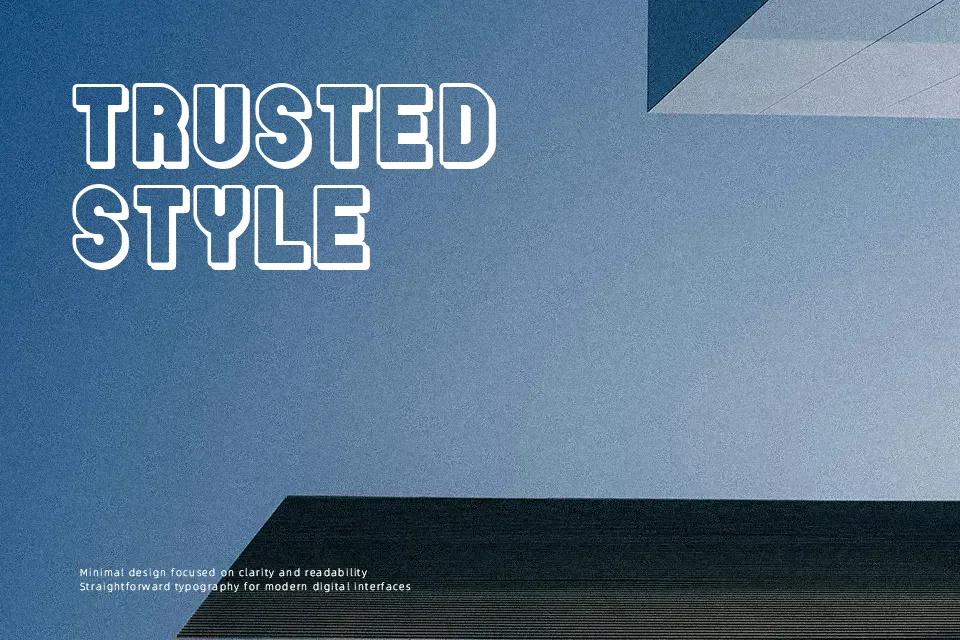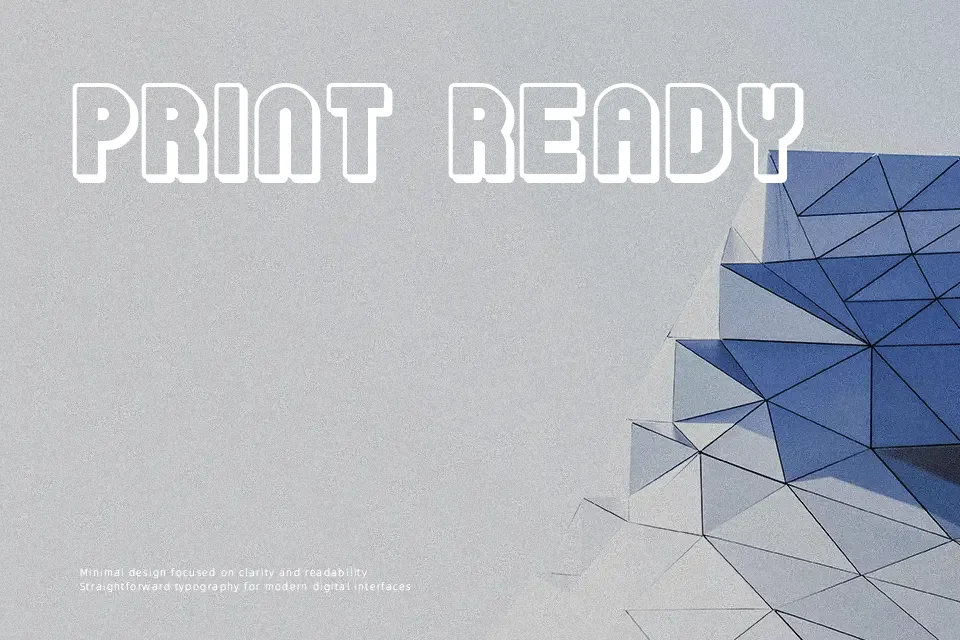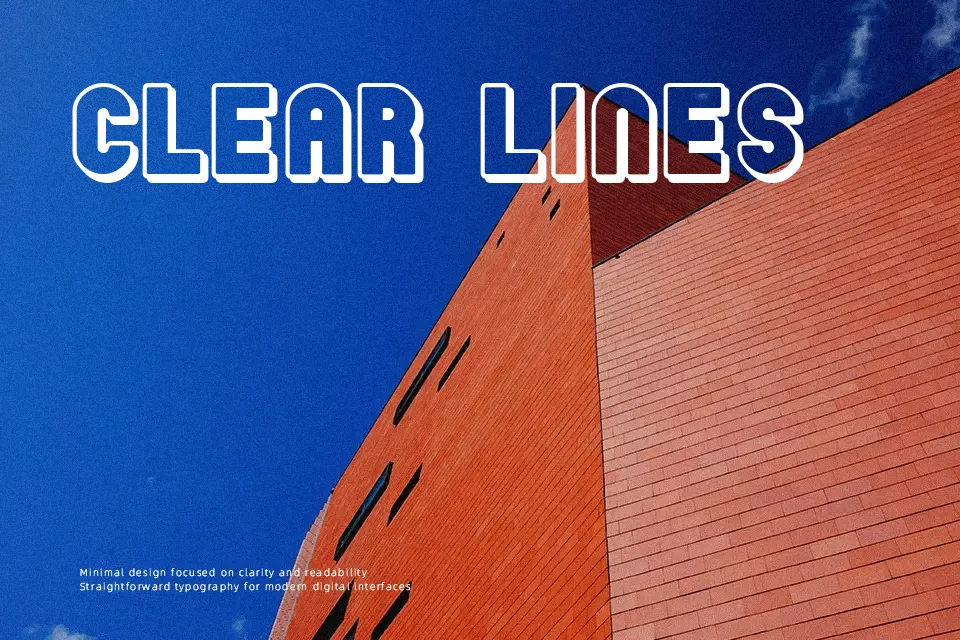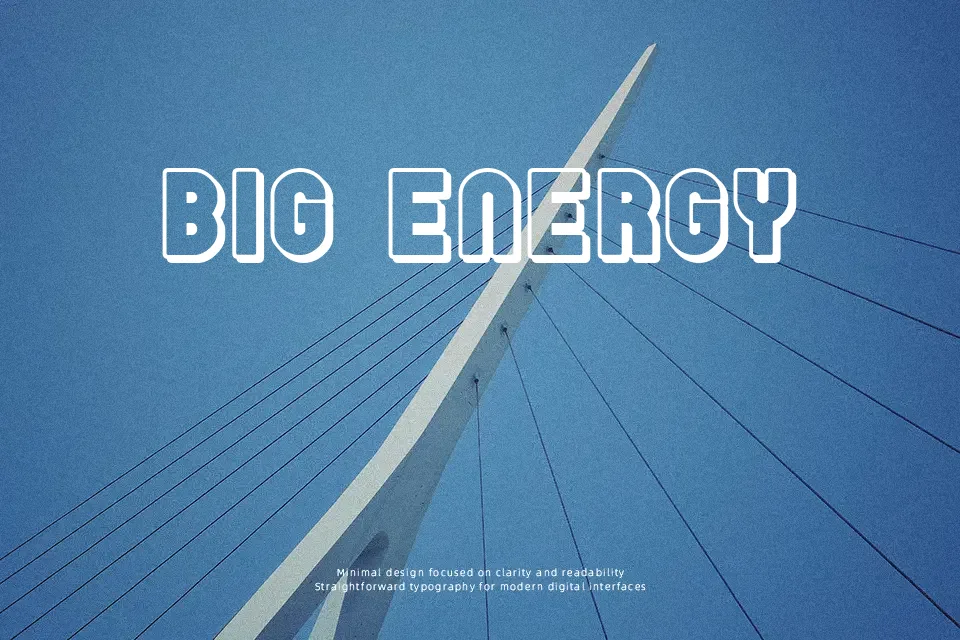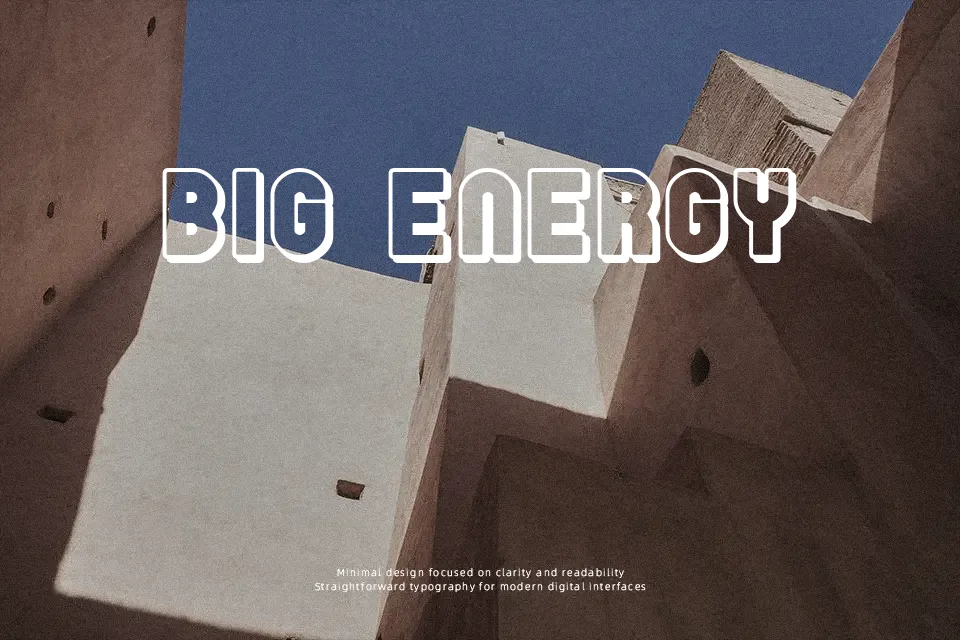
Rainy Days Font
A short product label or poster headline benefits from the dynamic energy of Rainy Days Font. This display typeface utilizes thick, rounded strokes arranged into a hollowed, three-dimensional structure that immediately draws attention. The letterforms carry a distinctly groovy proportion, balancing playful curves with dense but manageable spacing. Because the characters rely on an outlined aesthetic, they remain highly legible at larger scales while preserving a strong visual rhythm. The chunky outlines help maintain clarity in larger headlines, allowing creative layouts to stand out naturally. However, these same decorative details become less effective at smaller sizes, where the hollow centers easily lose definition. The design performs exceptionally well for expressive applications, though complex forms reduce continuous reading comfort.
Best For: retro product packaging, vintage music festival posters, children’s apparel graphics, arcade game branding
Not Ideal For: long paragraph text, dense editorial layouts, spreadsheet data, small interface labels
Perfect for gaming, headline, and kids, with a bubble and decorative style.